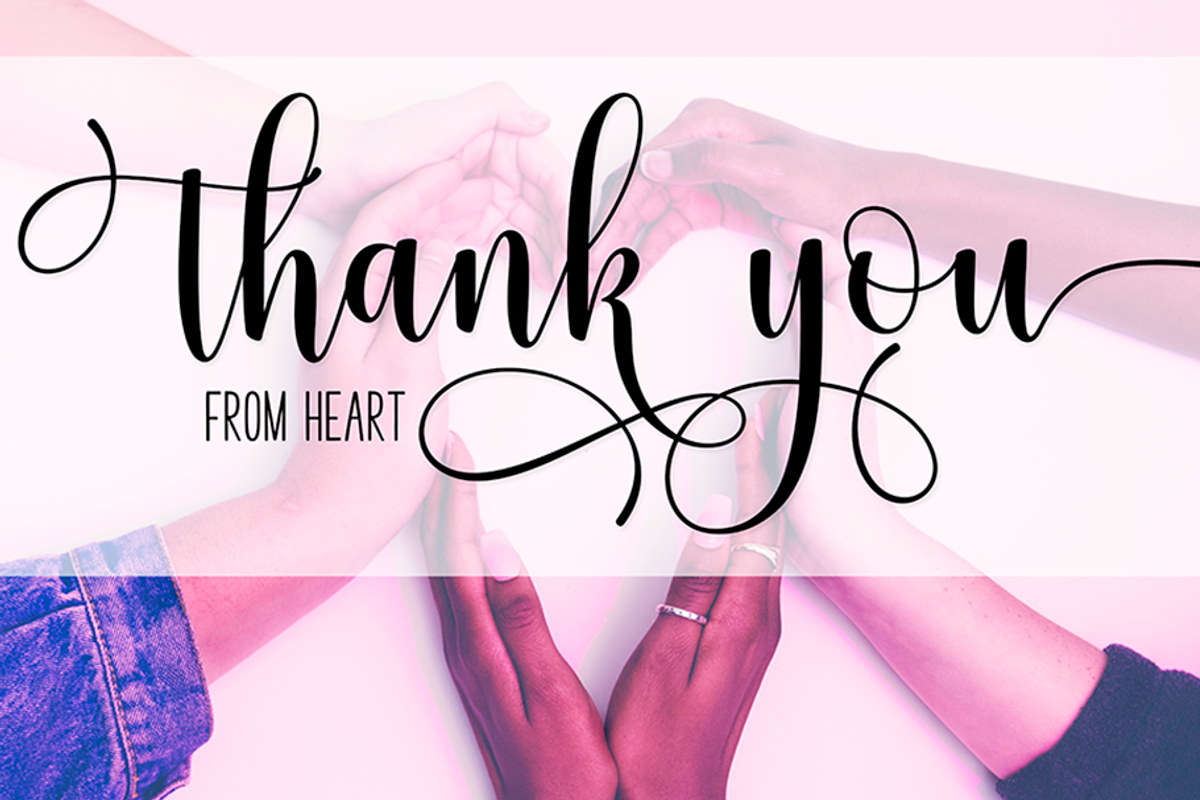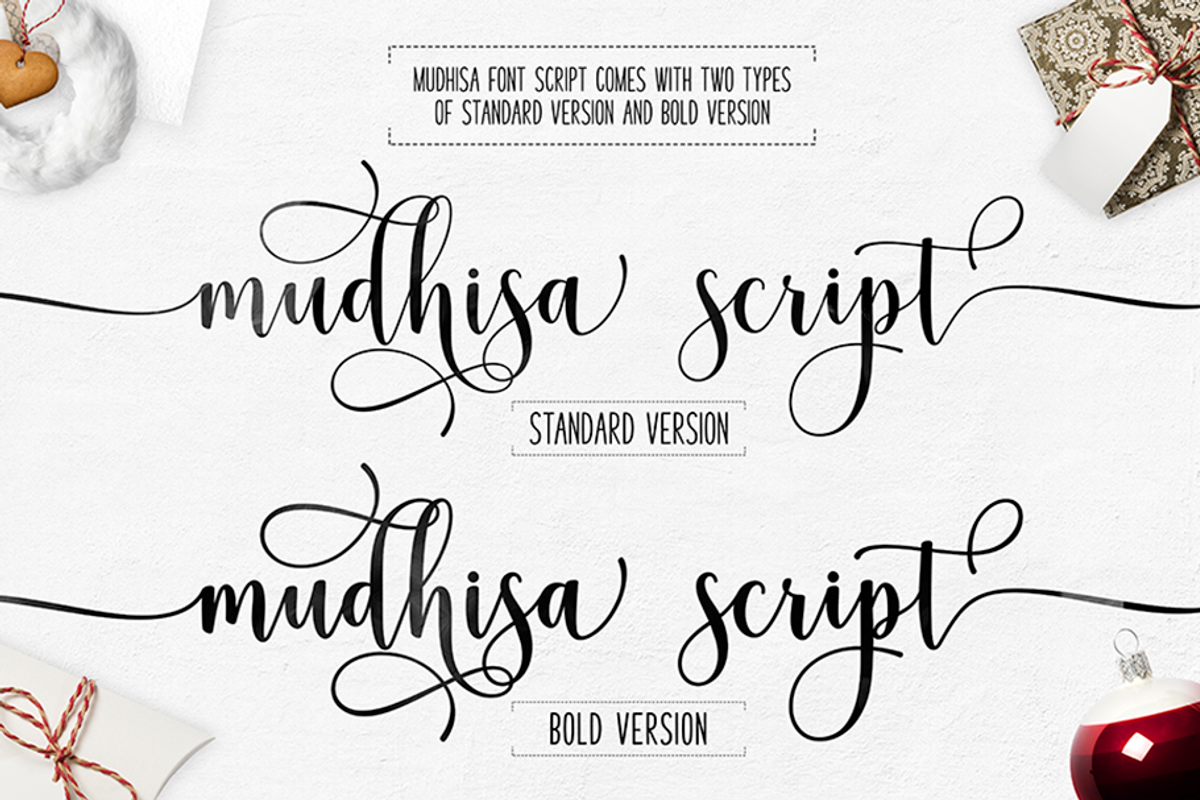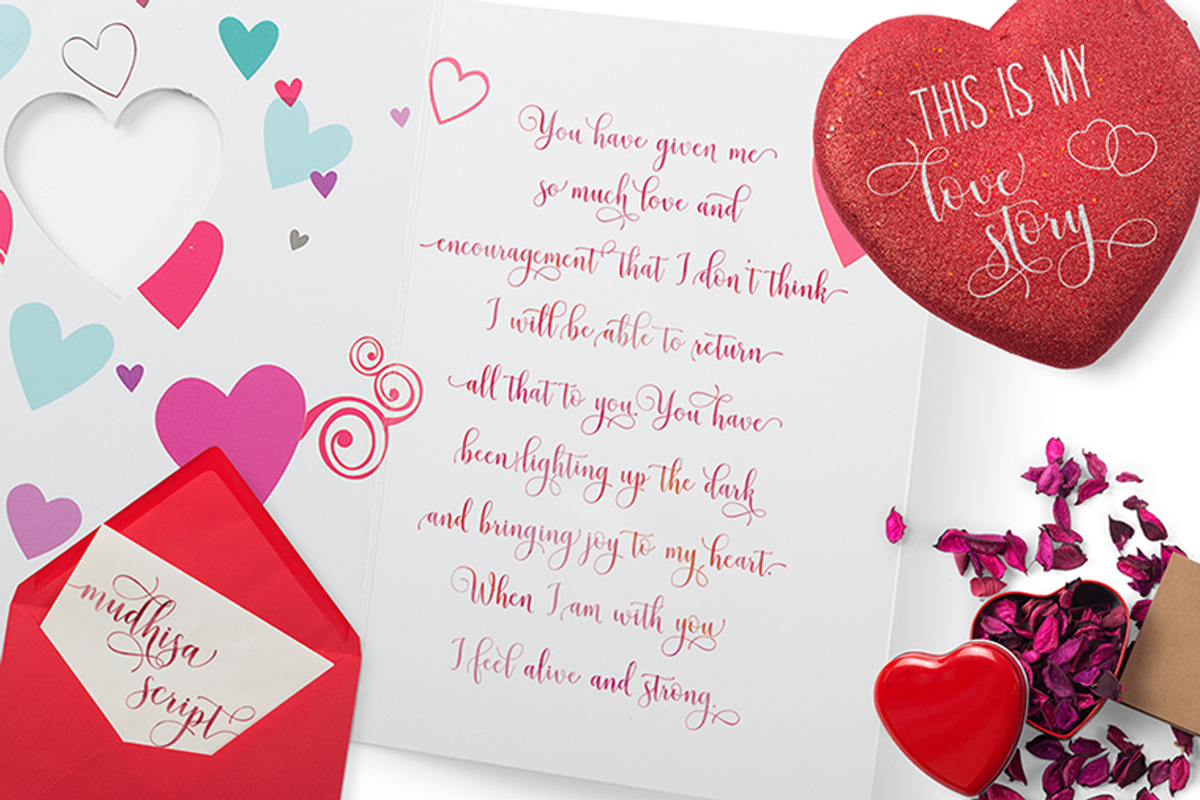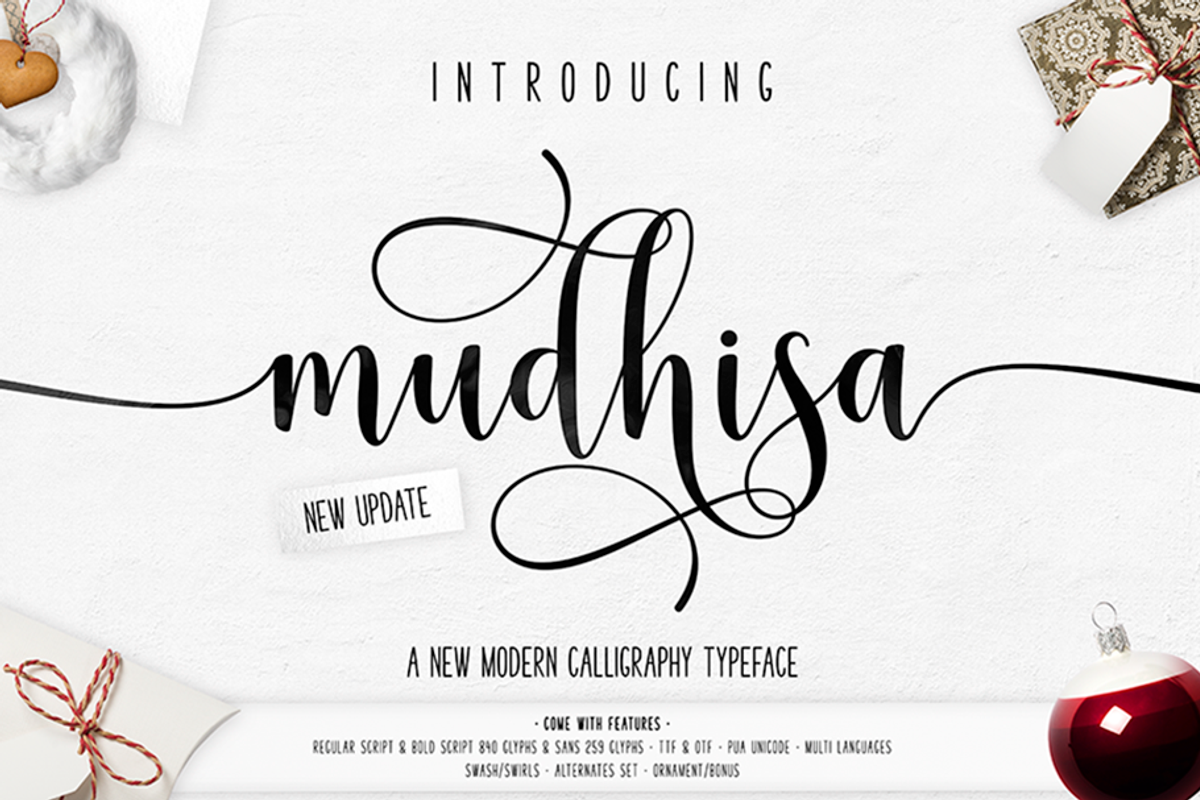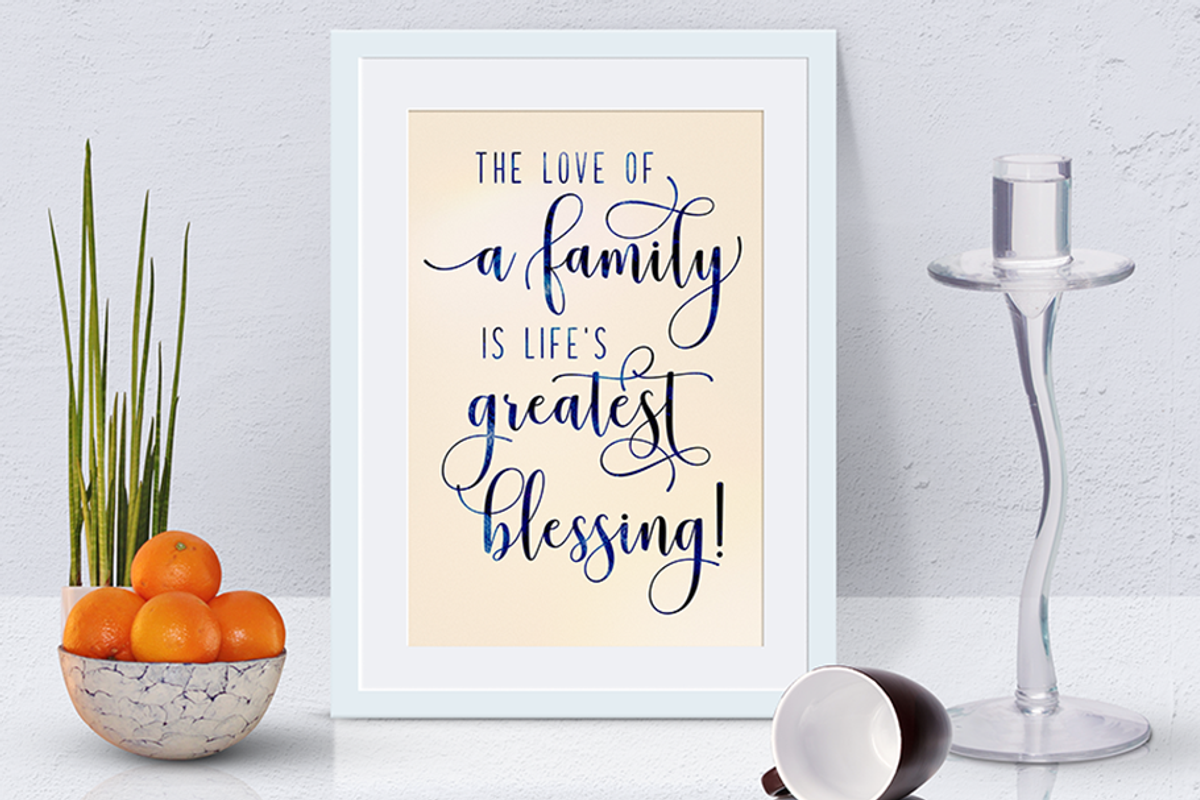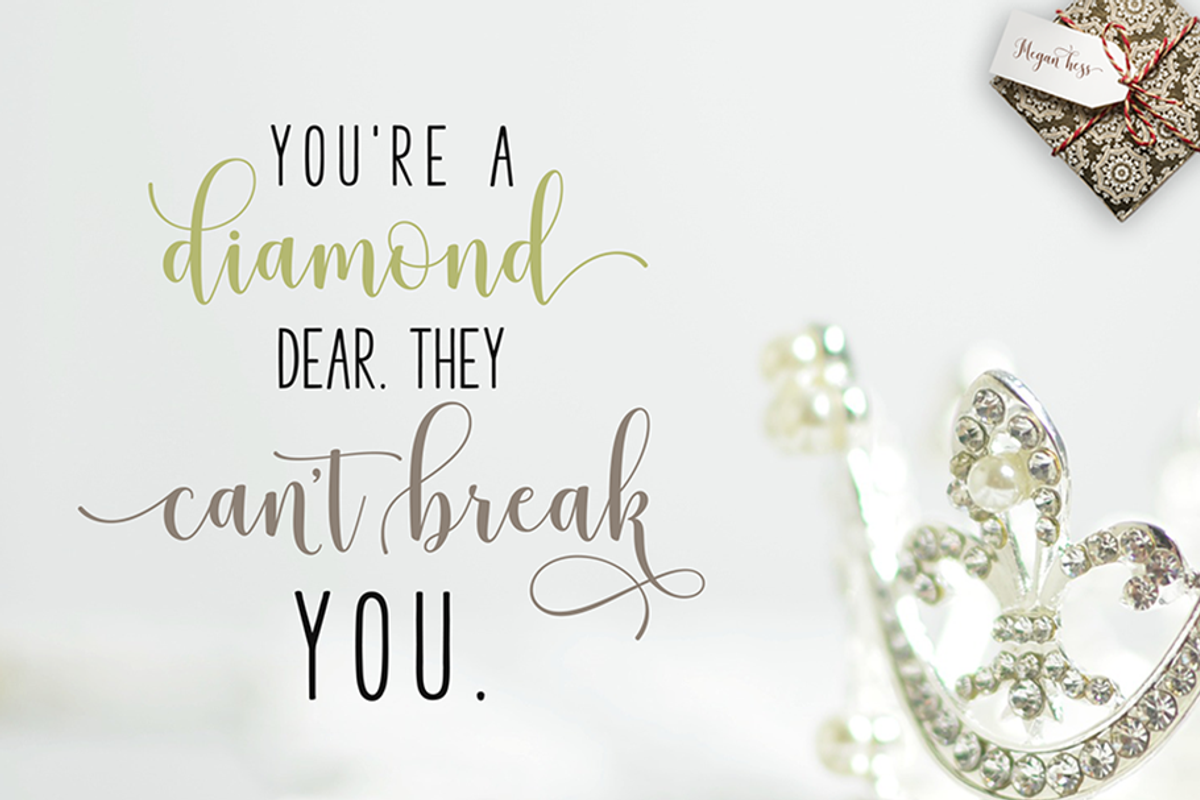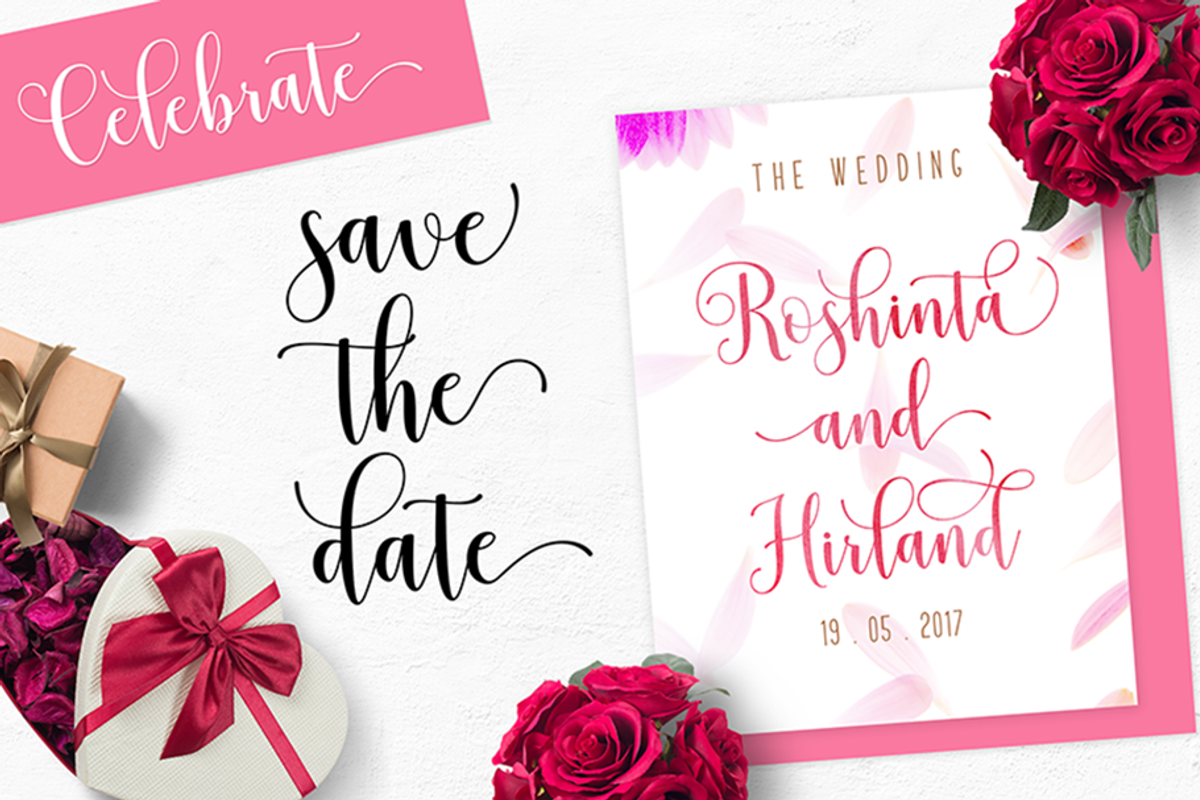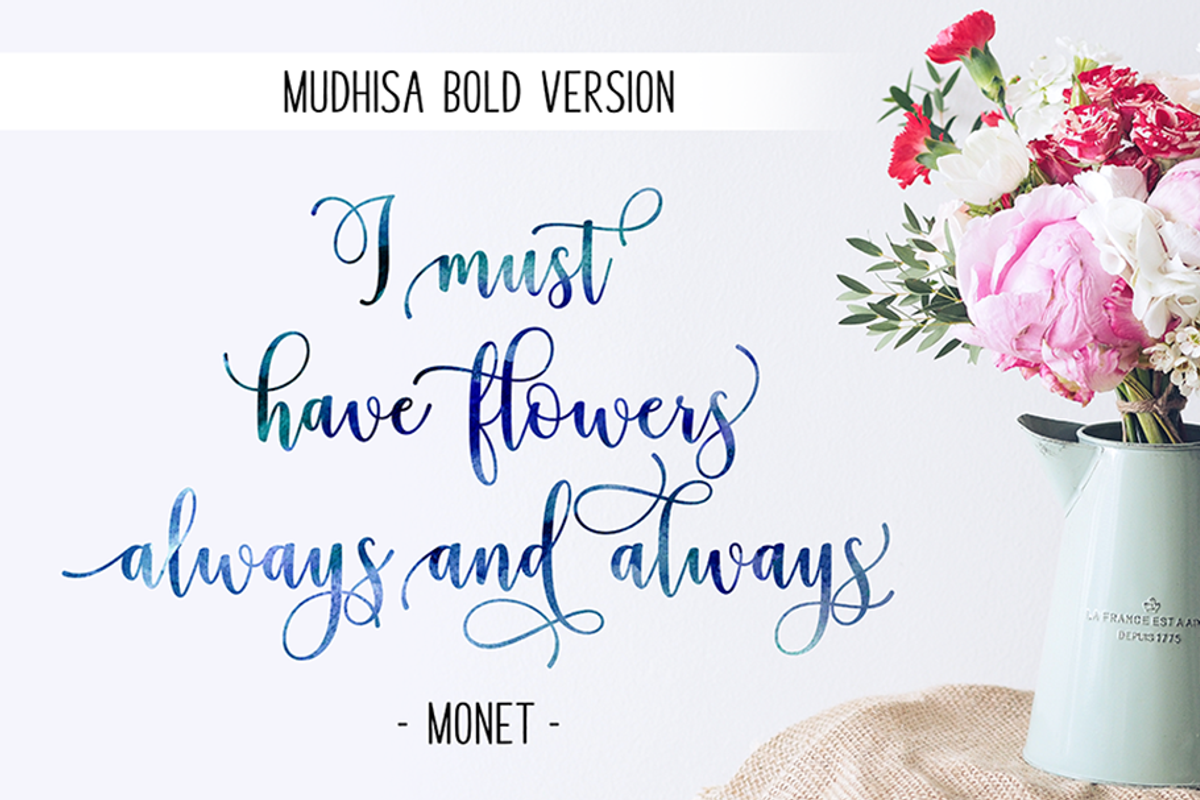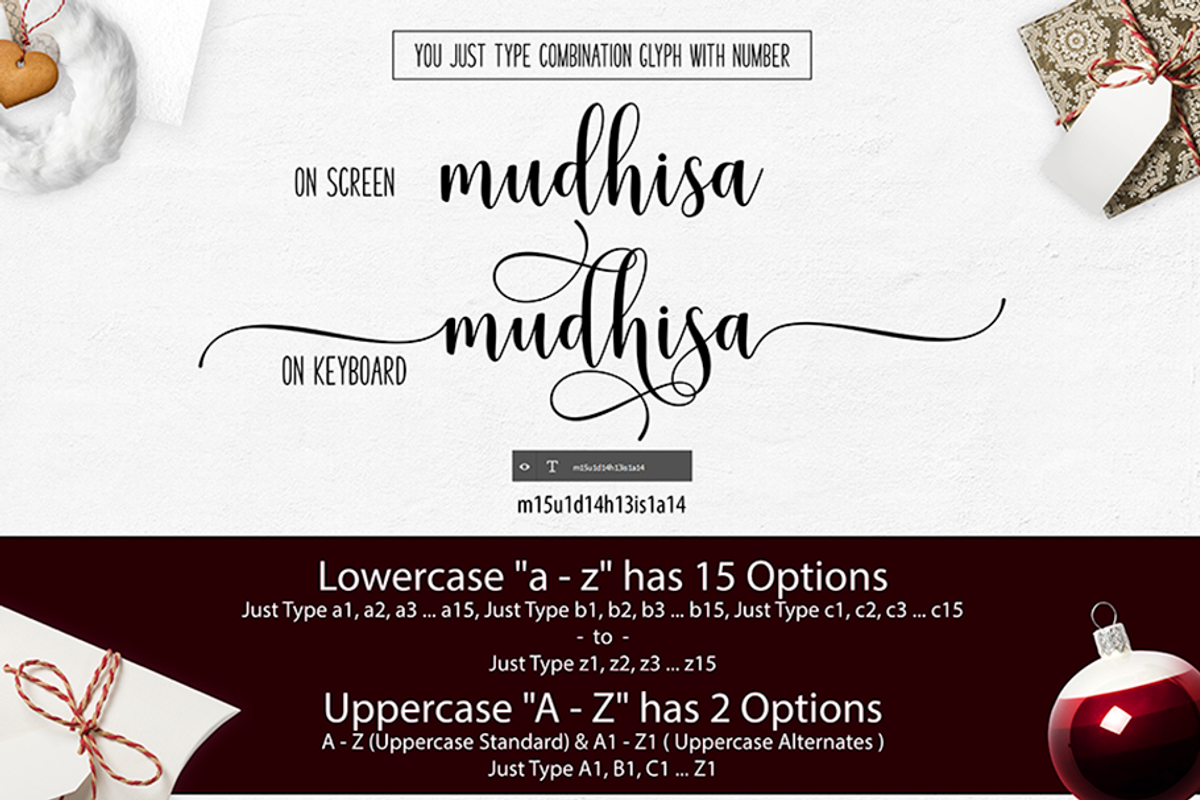
New Mudhisa Script
Introduce my New Font Mudhisa Script is a handwritten calligraphy with the kind of modern hand scratches. This typeface has been enriches with additional alternates characters up to 840 glyphs (Standard & Bold). Works perfectly for logos, fashion, stationery, letterpress, magazines, menus, books, invitations, wedding / greeting cards, packaging, labels, apparel, marketing etc.
- Stylistic Sets
- Swash/Swirls
- Latin Pro Support Character